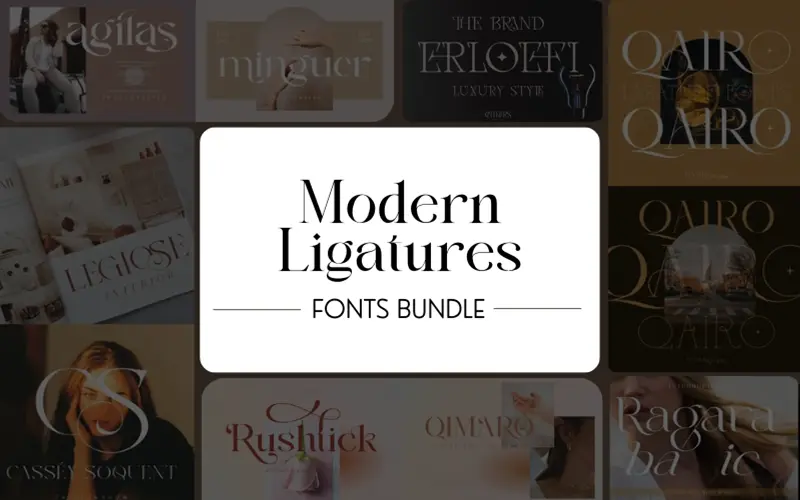
Add a touch of class & modernity to your designs with these versatile and easy-to-use fonts in the –
Modern Ligatures Fonts Bundle
They are ideal for creating banners, posters, packaging, book covers, flyers, social media graphics and other creatives.
This Modern Ligatures Fonts Bundle Includes:
Arasik Font
Astaken Font
Belarost Font
Chikers Font
Ghisel Font
Mictons Font
Miroles Font
Qairo Font
Qastars Font
Qimaky Font
Ragara Font Duo
Rushtick Font
12 Modern Ligature Fonts
A Sneak Peak Into The Ligatures Fonts: